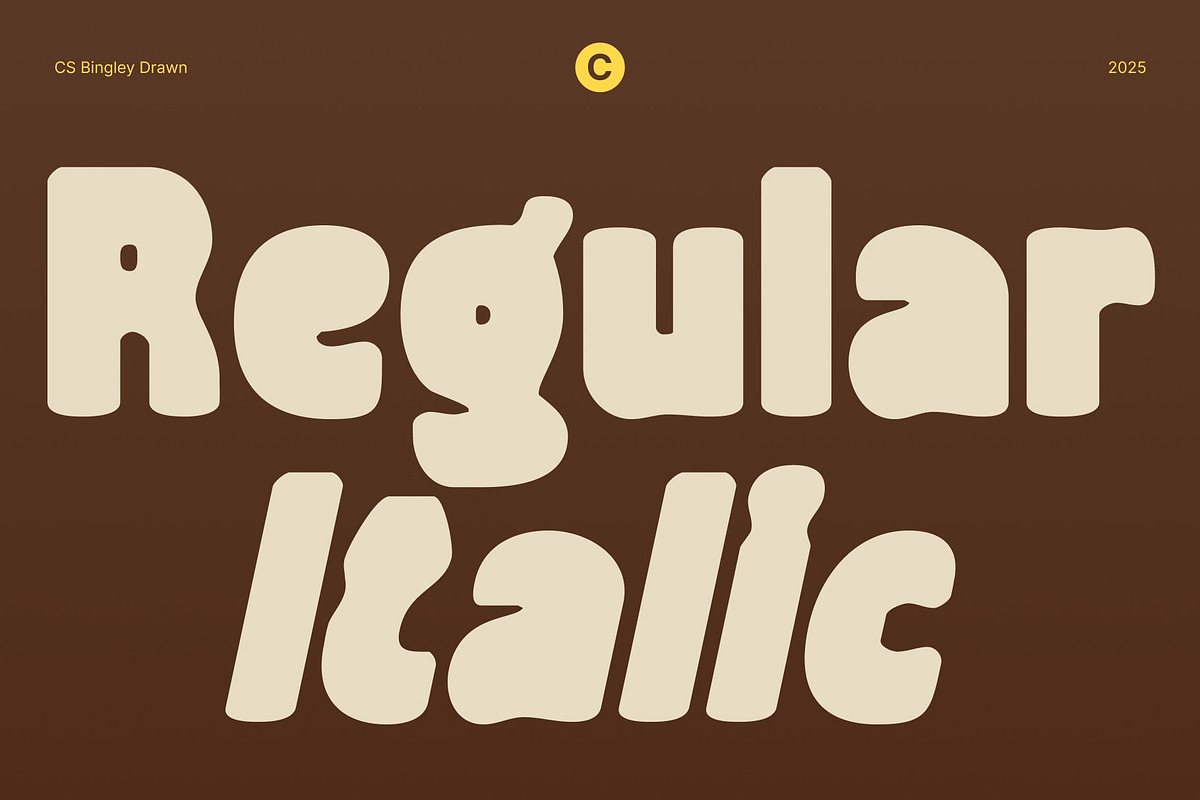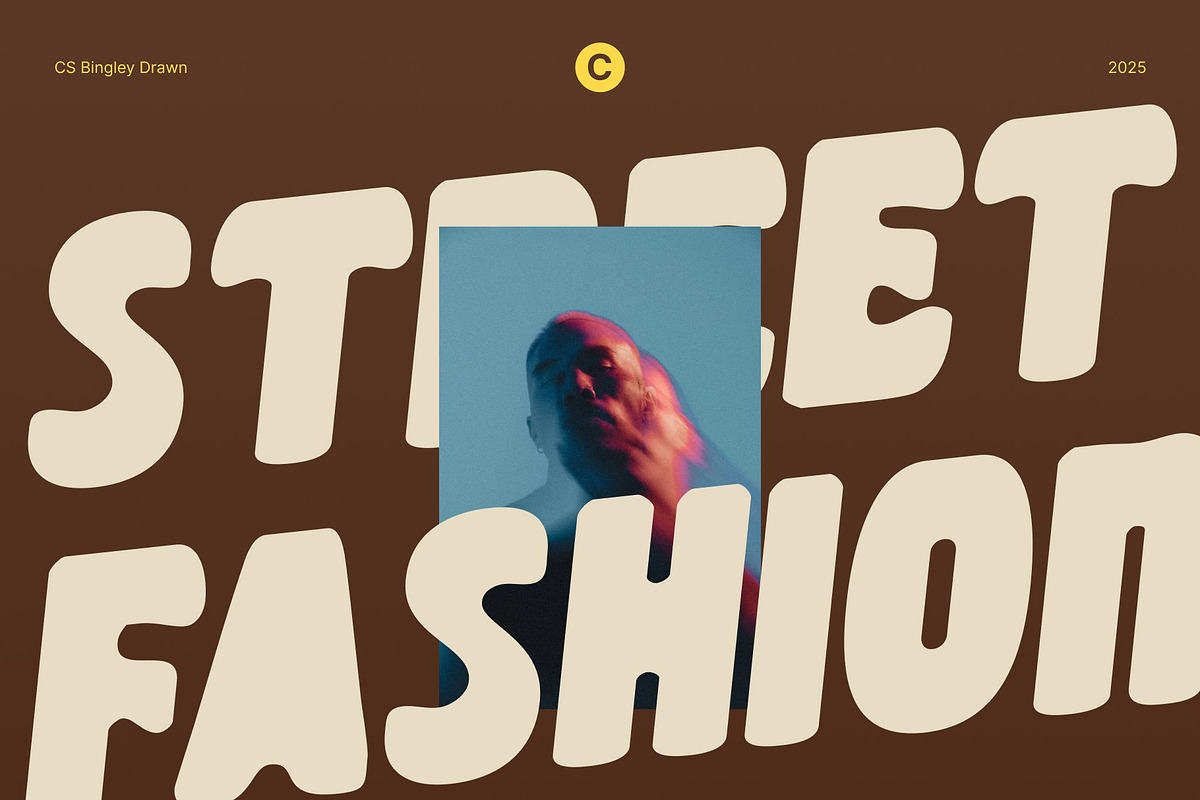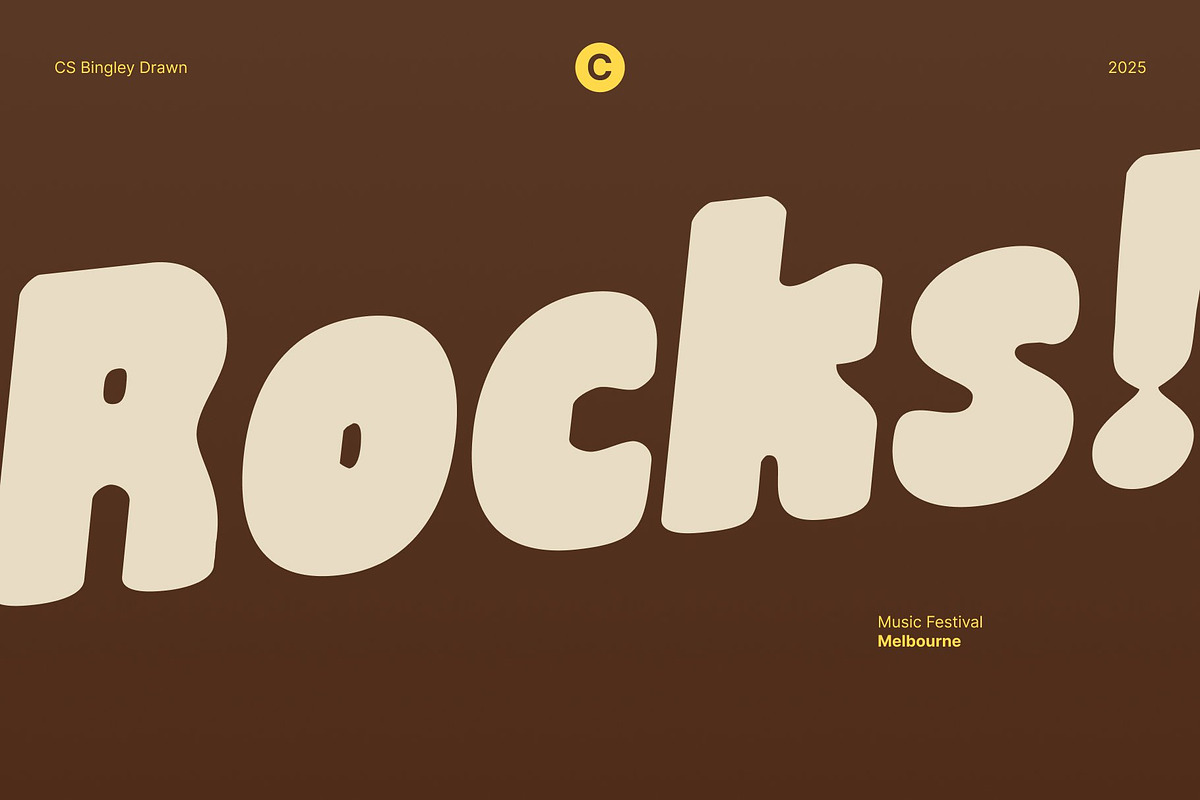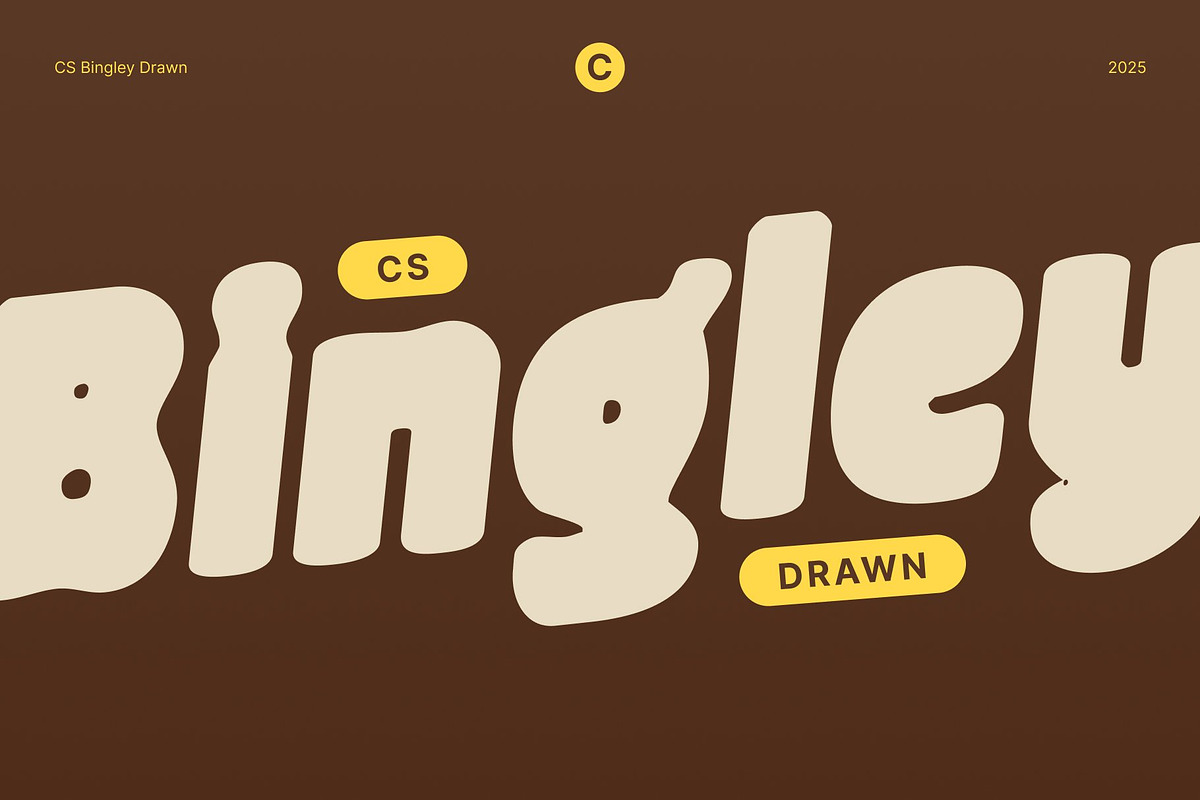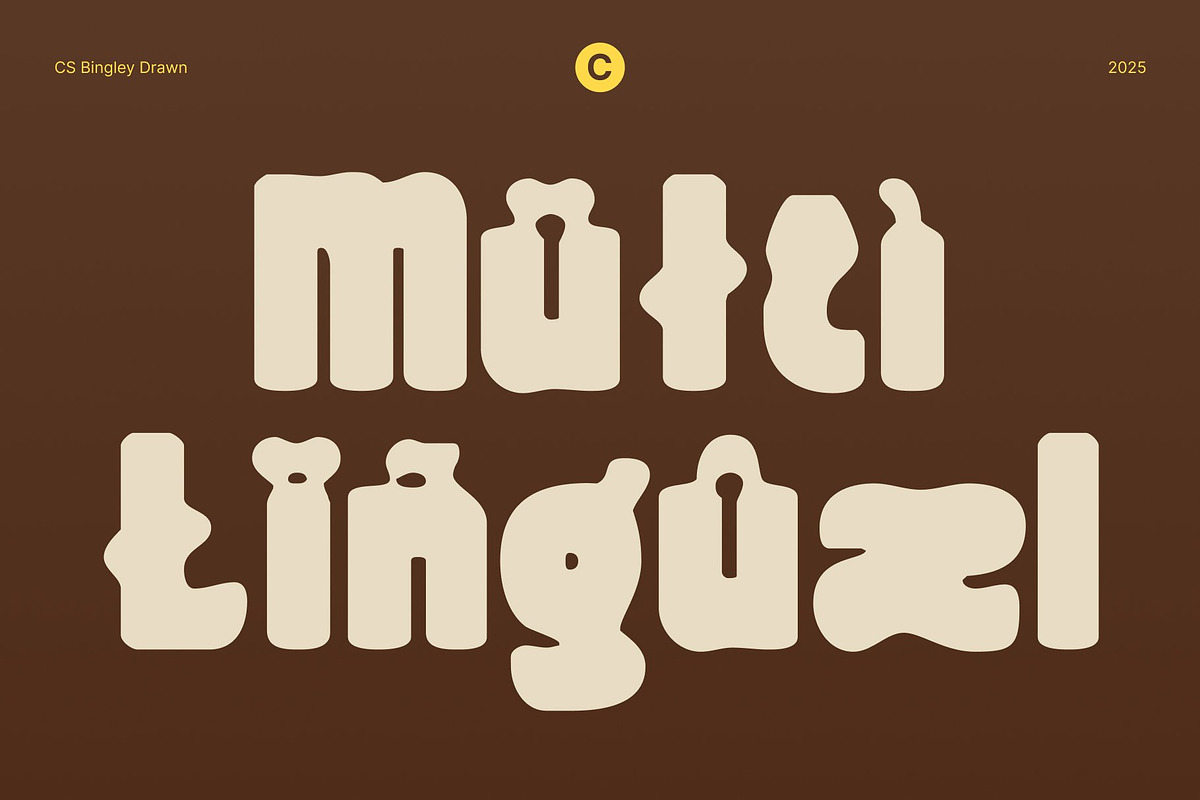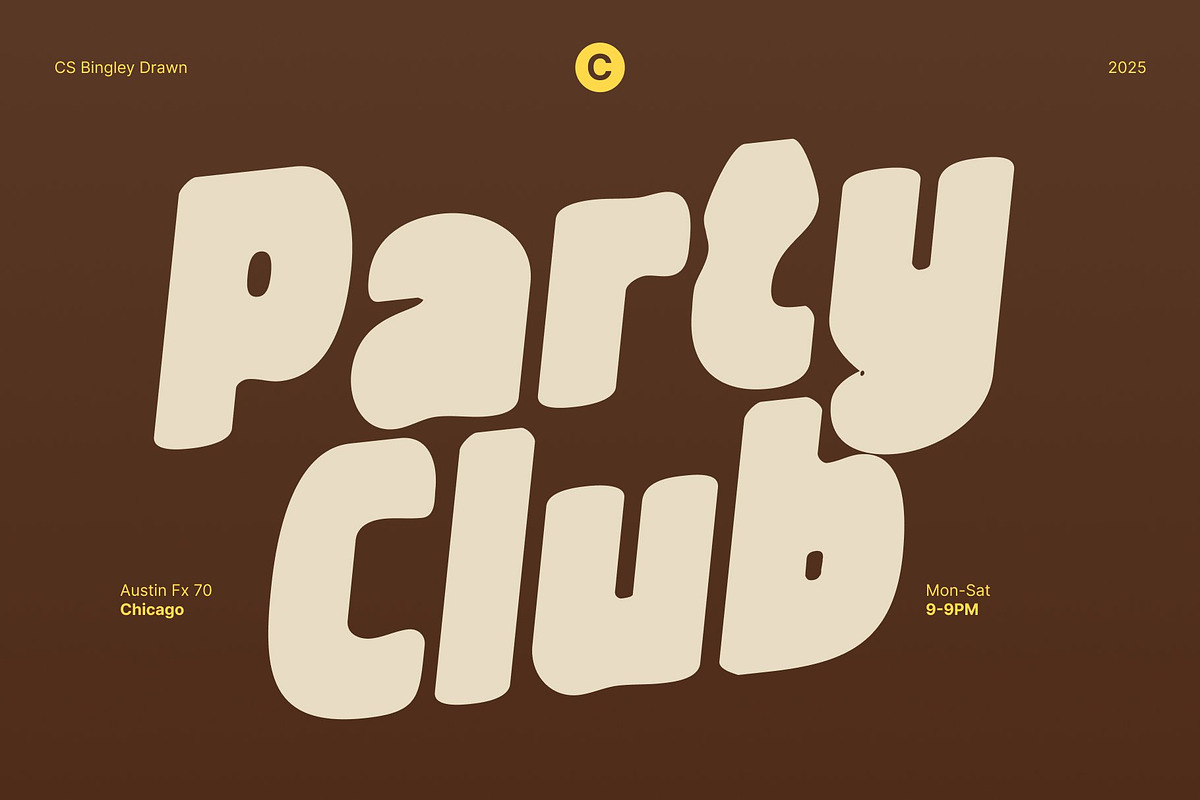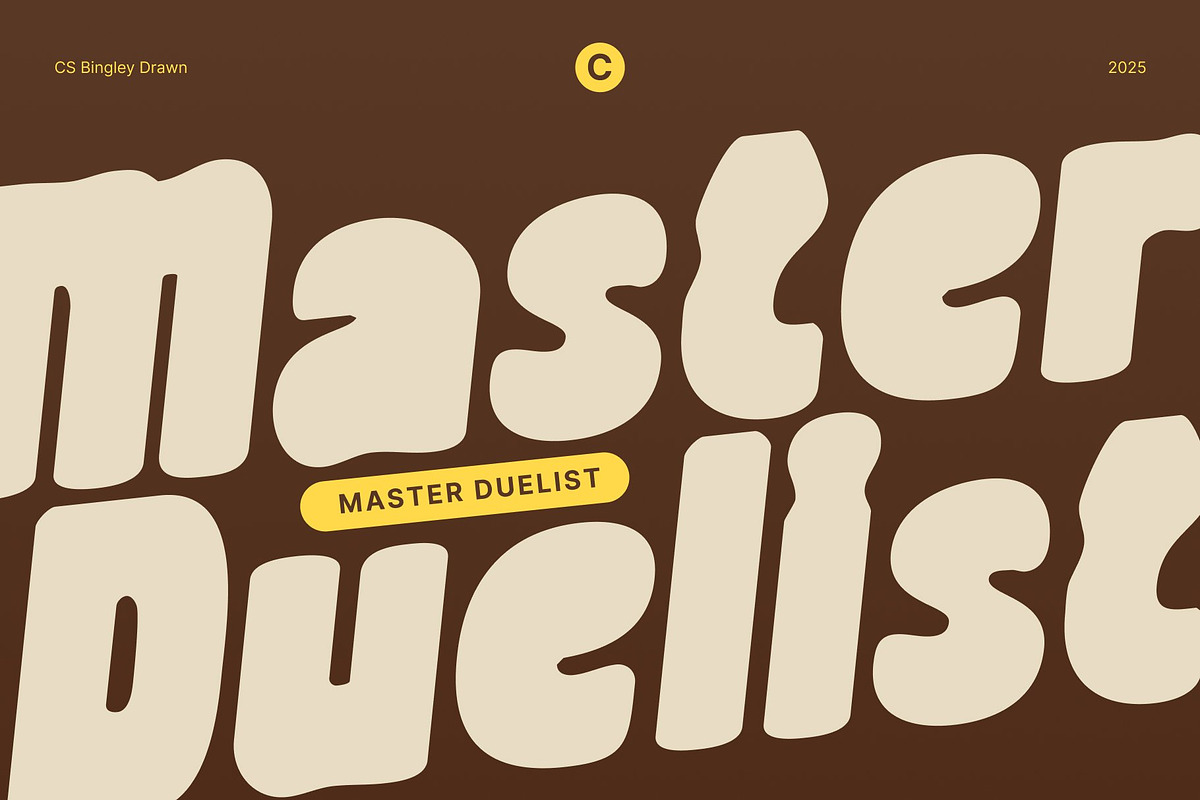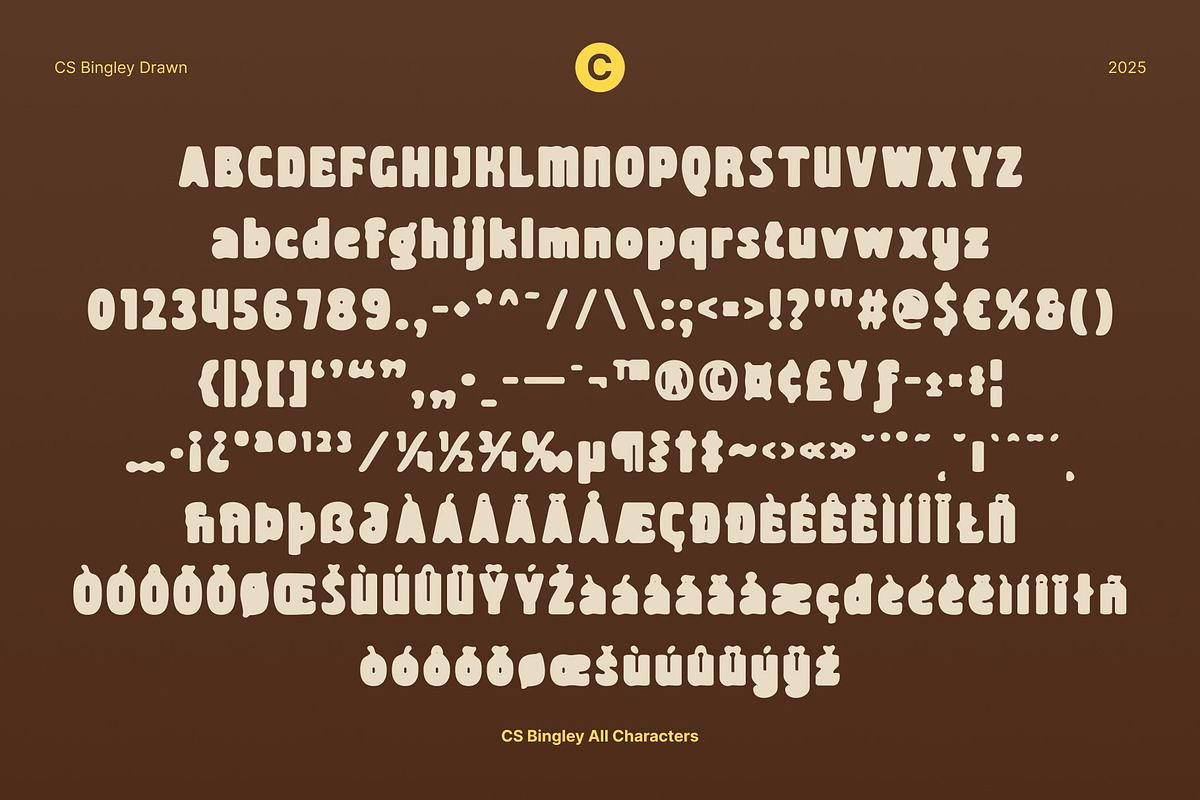
CS Bingley Drawn
CS Bingley Drawn – Bold Expression with Handcrafted Energy
Bold Sans Serif Display with Artistic Character This is a bold sans serif display font designed to capture attention with its strong, modern shapes. Its confident structure and dynamic presence make it perfect for designers who want to create a bold, memorable visual impact.
Handmade Texture for Authentic Style The drawn, handmade touch adds a layer of artistic personality to the font, softening its boldness with organic warmth. This handcrafted detail gives this font a unique charm balancing modern strength with creative imperfection.
Expressive and Lively Design Every stroke in this font carries energy and movement, creating a font that feels both powerful and human. Its lively rhythm and expressive forms make it ideal for projects that need to communicate confidence with creativity.
Perfect for Headlines, Posters, and Branding From standout headlines and artistic posters to creative branding materials, this font delivers style and substance. Its bold shapes and handmade texture make it the perfect choice for designs that aim to be eye-catching, expressive, and full of life.